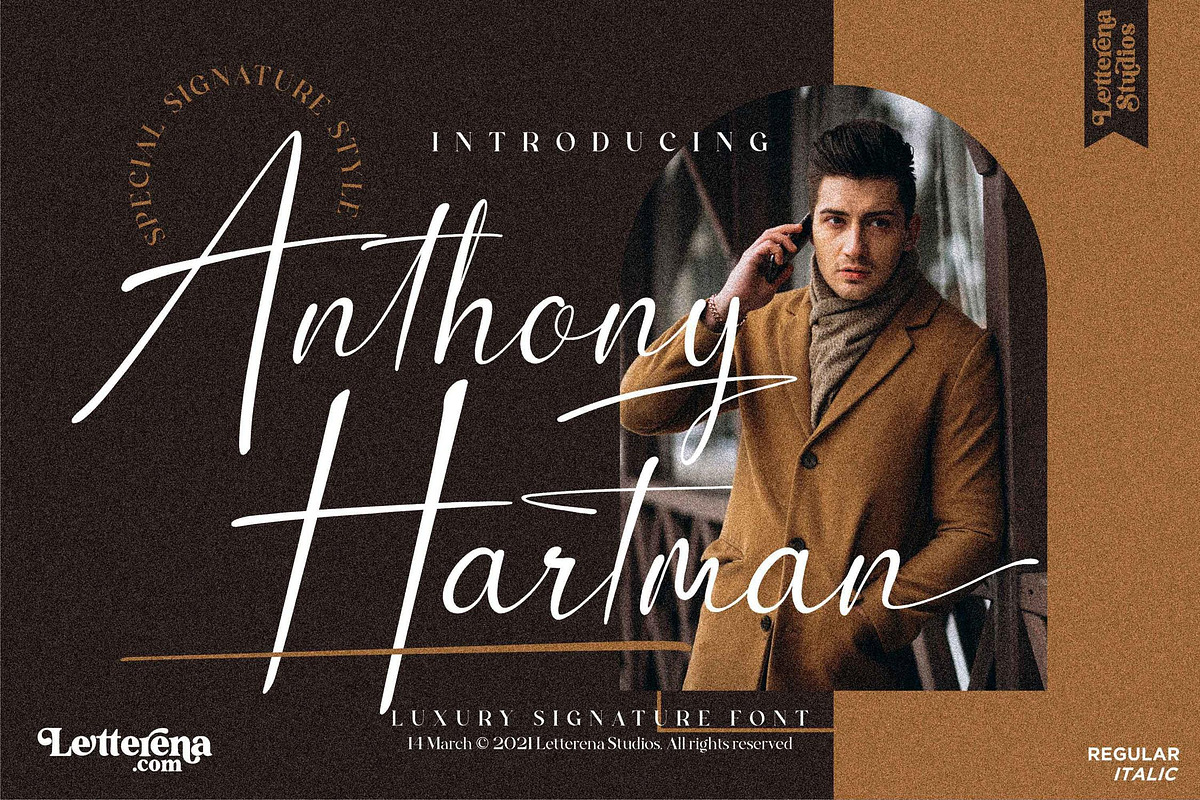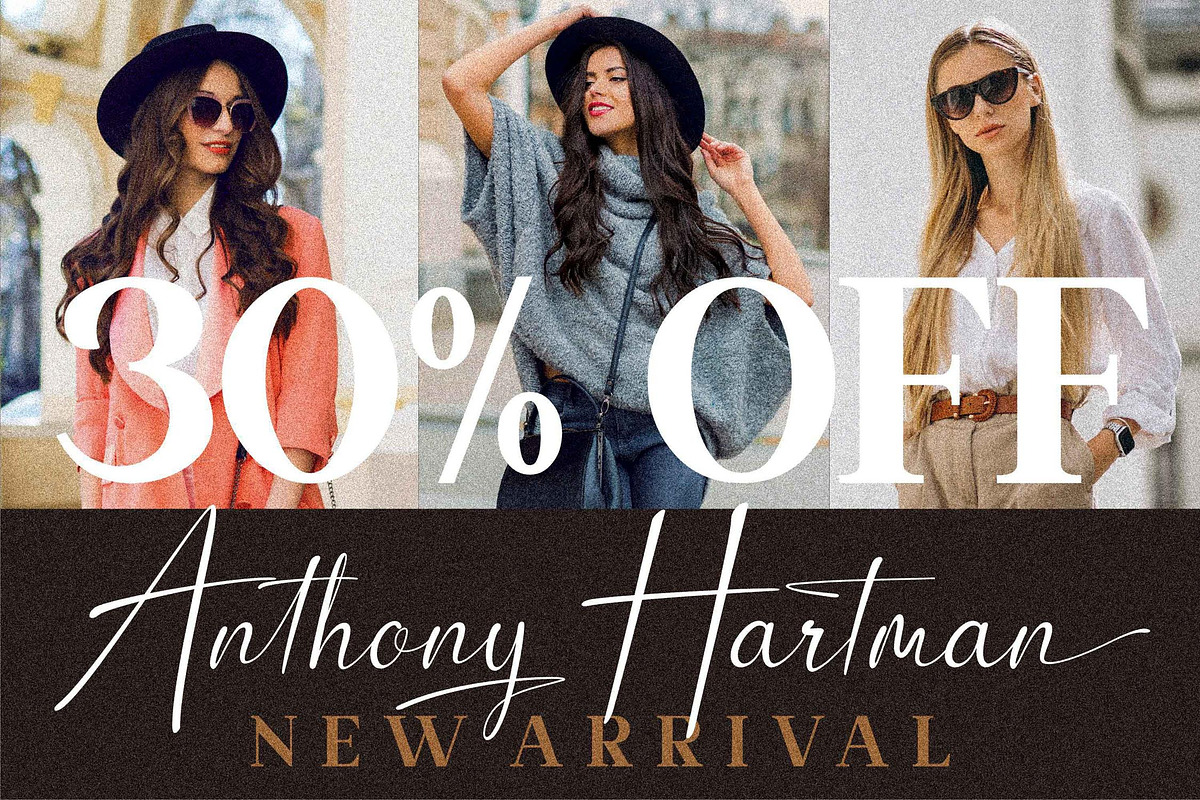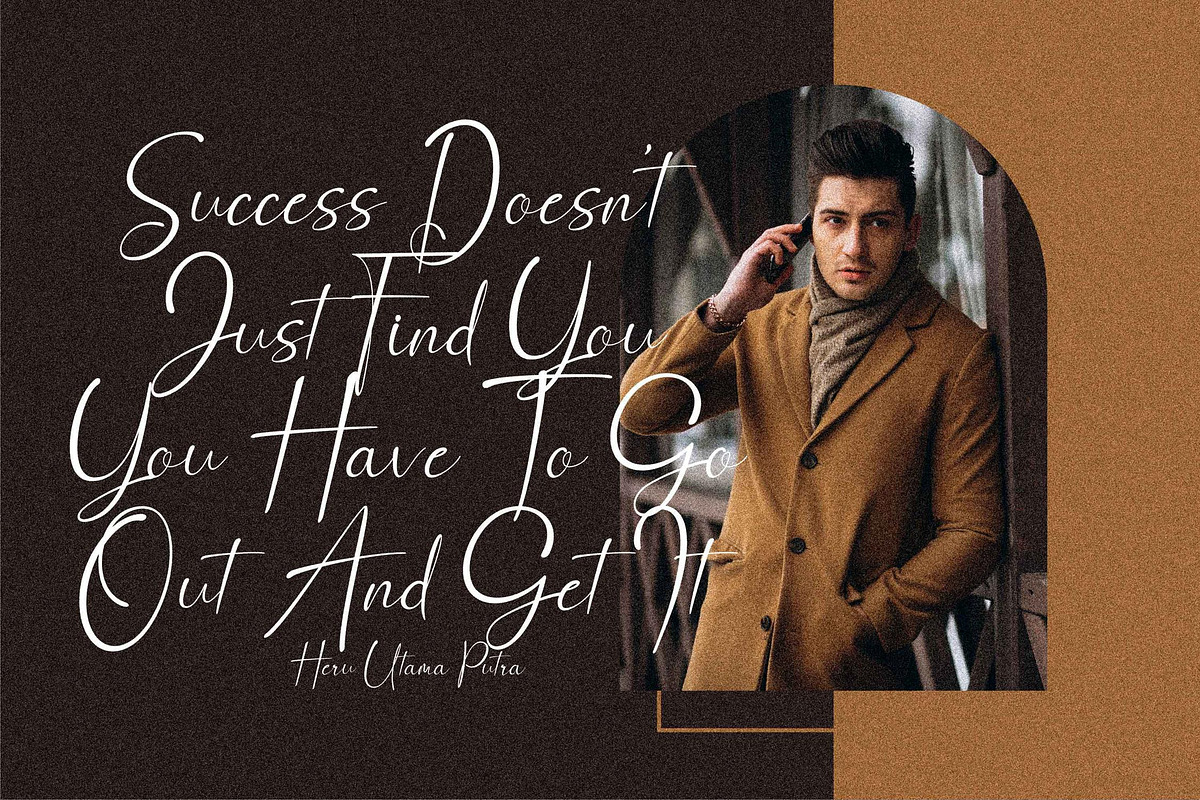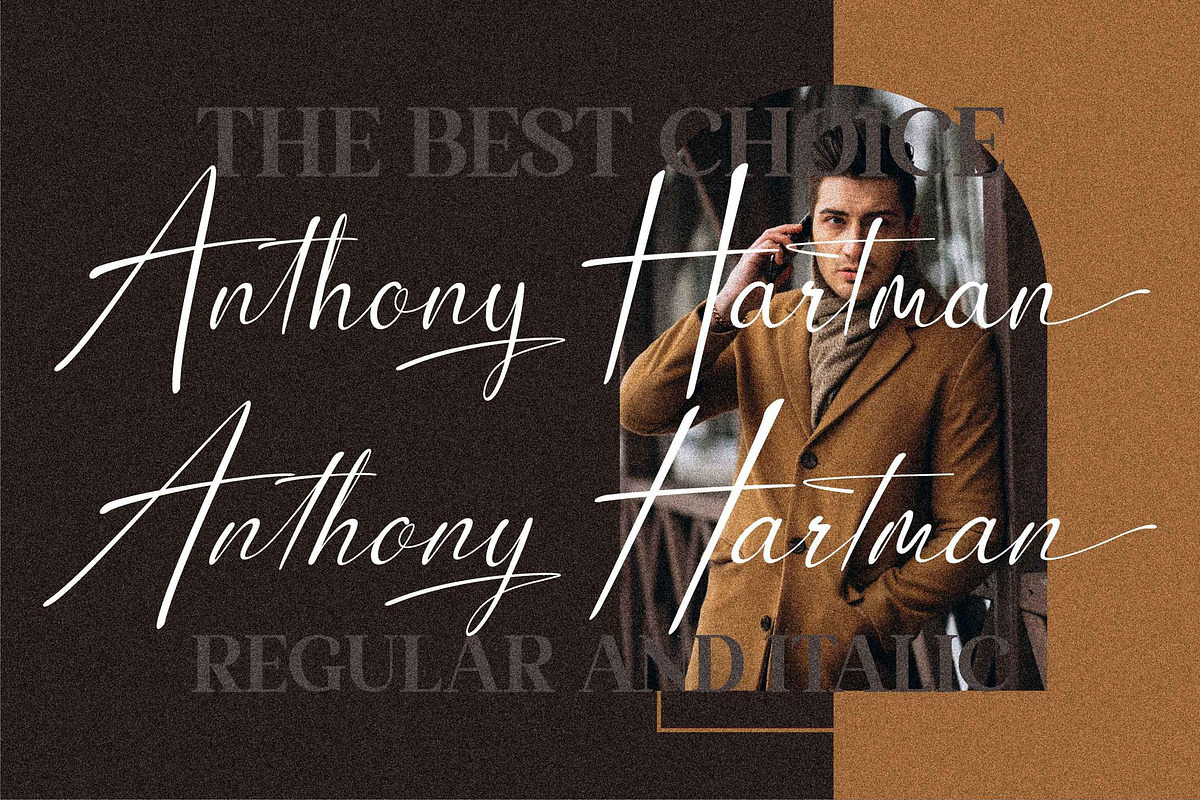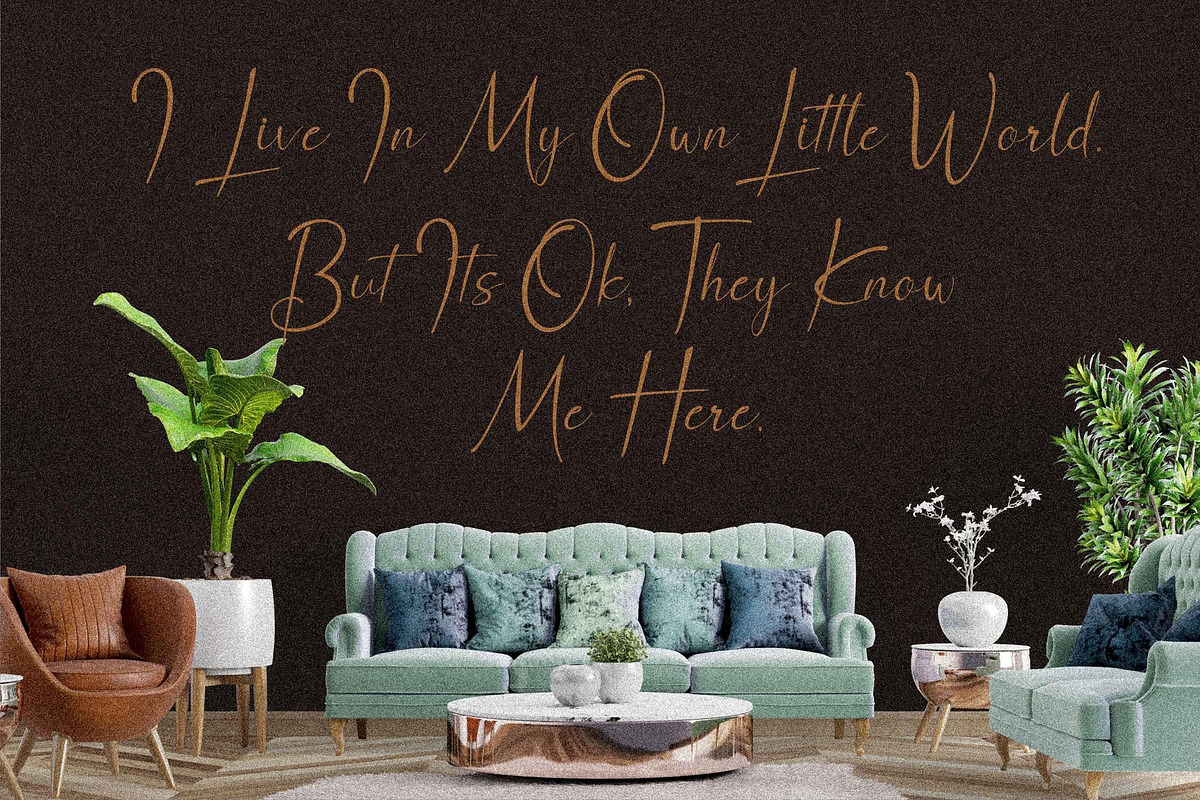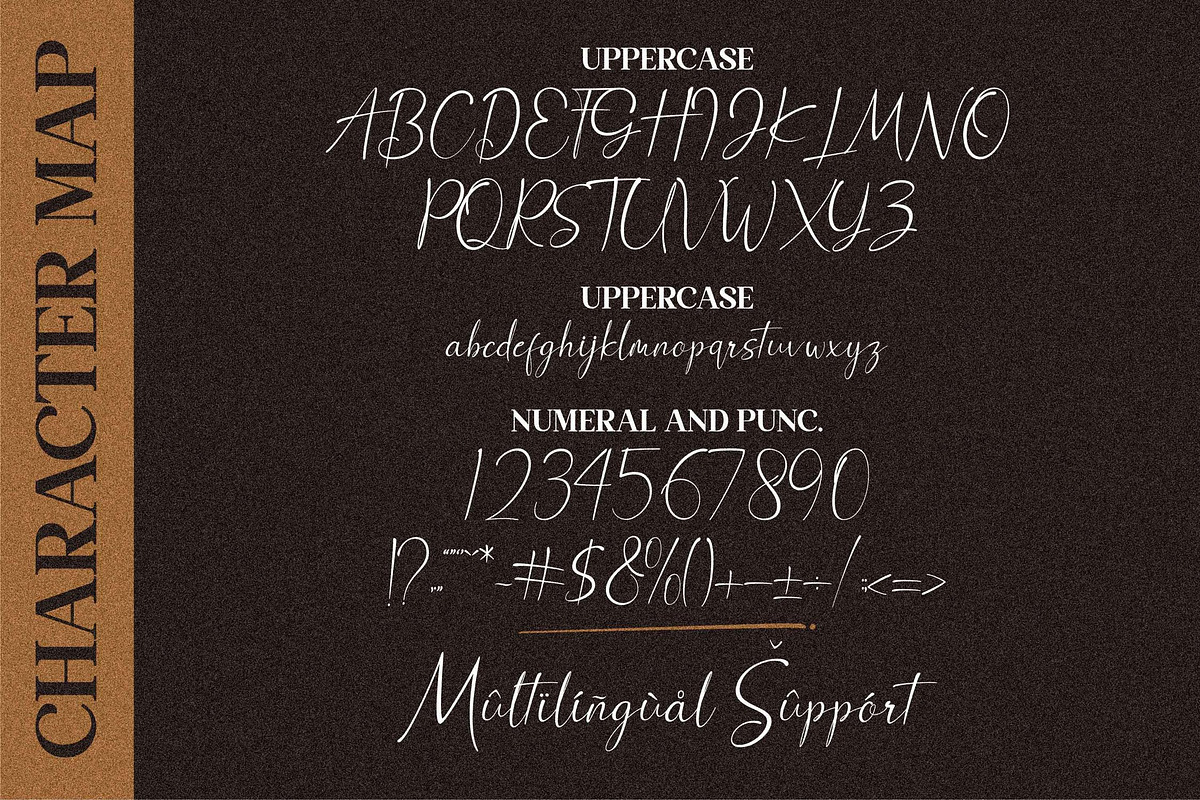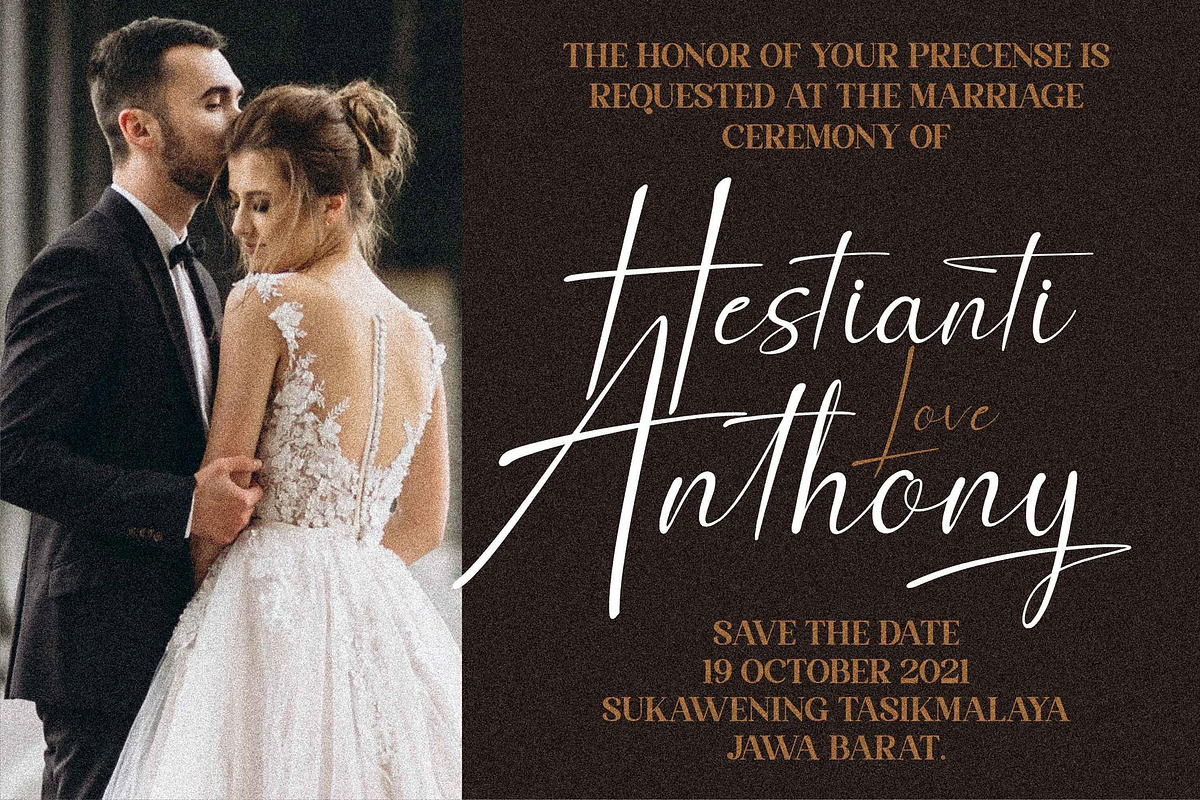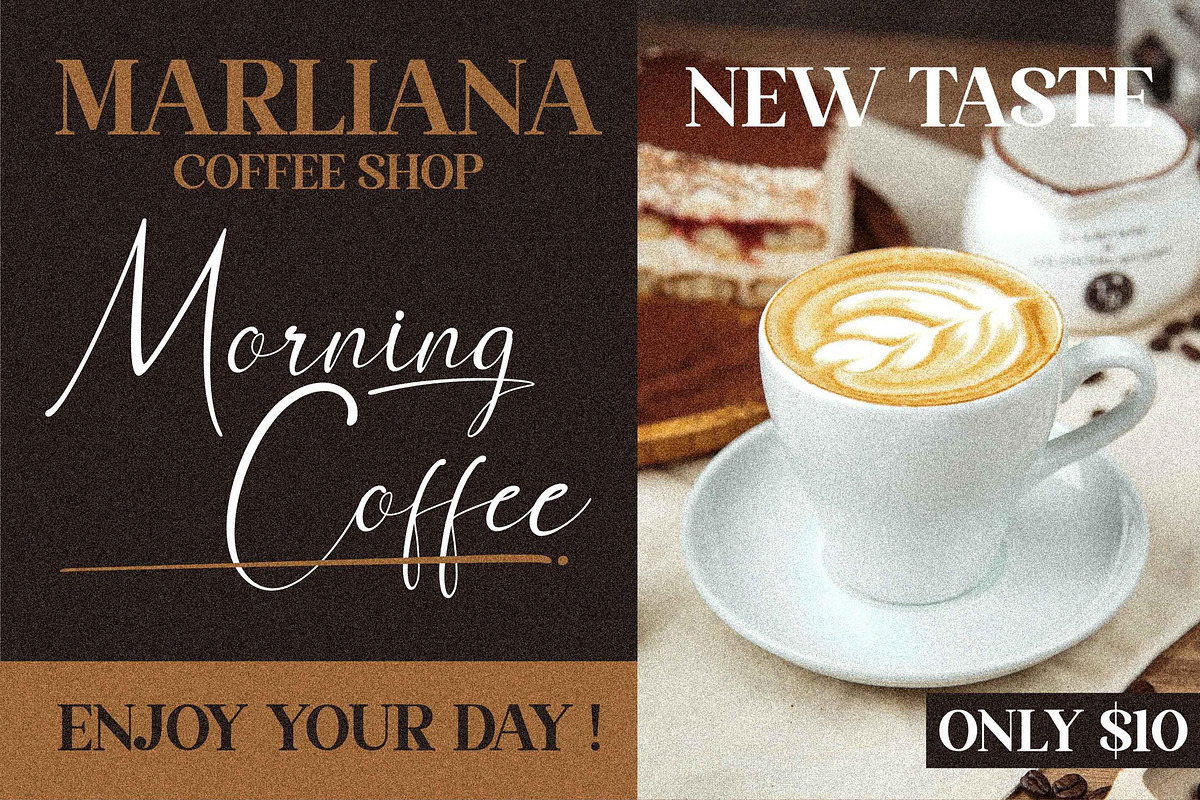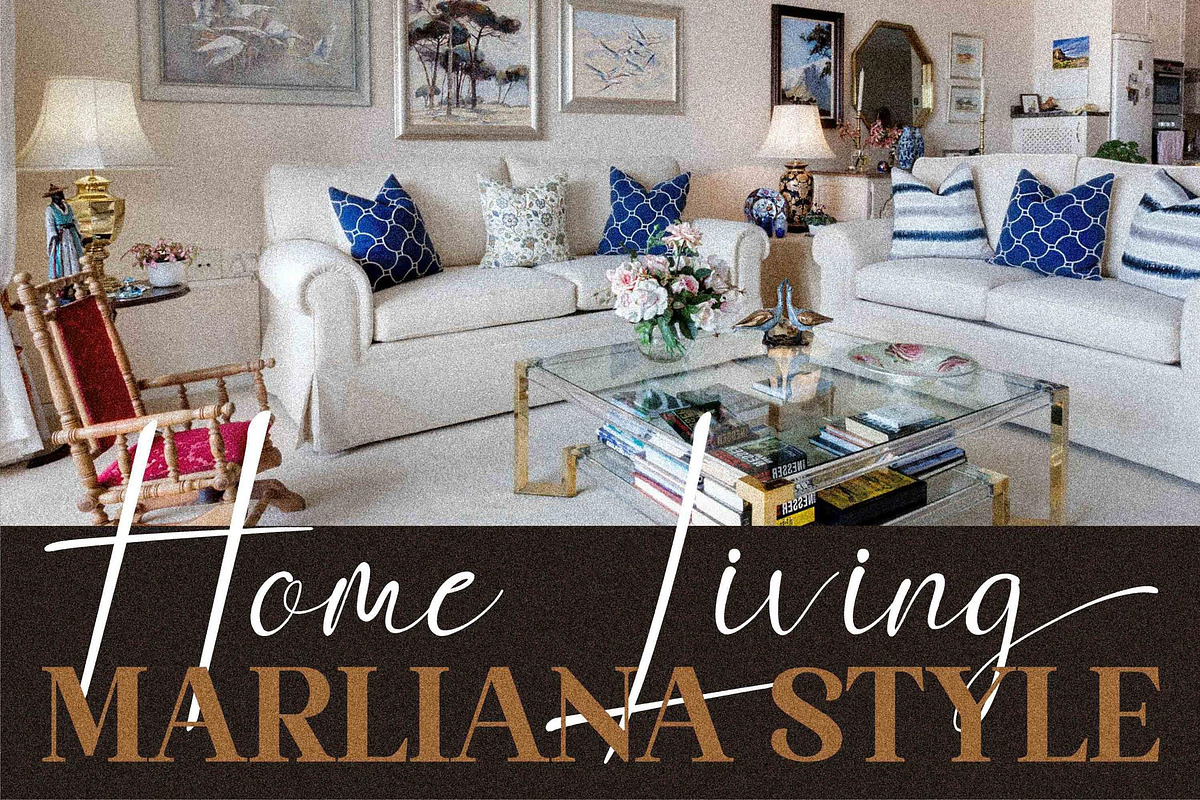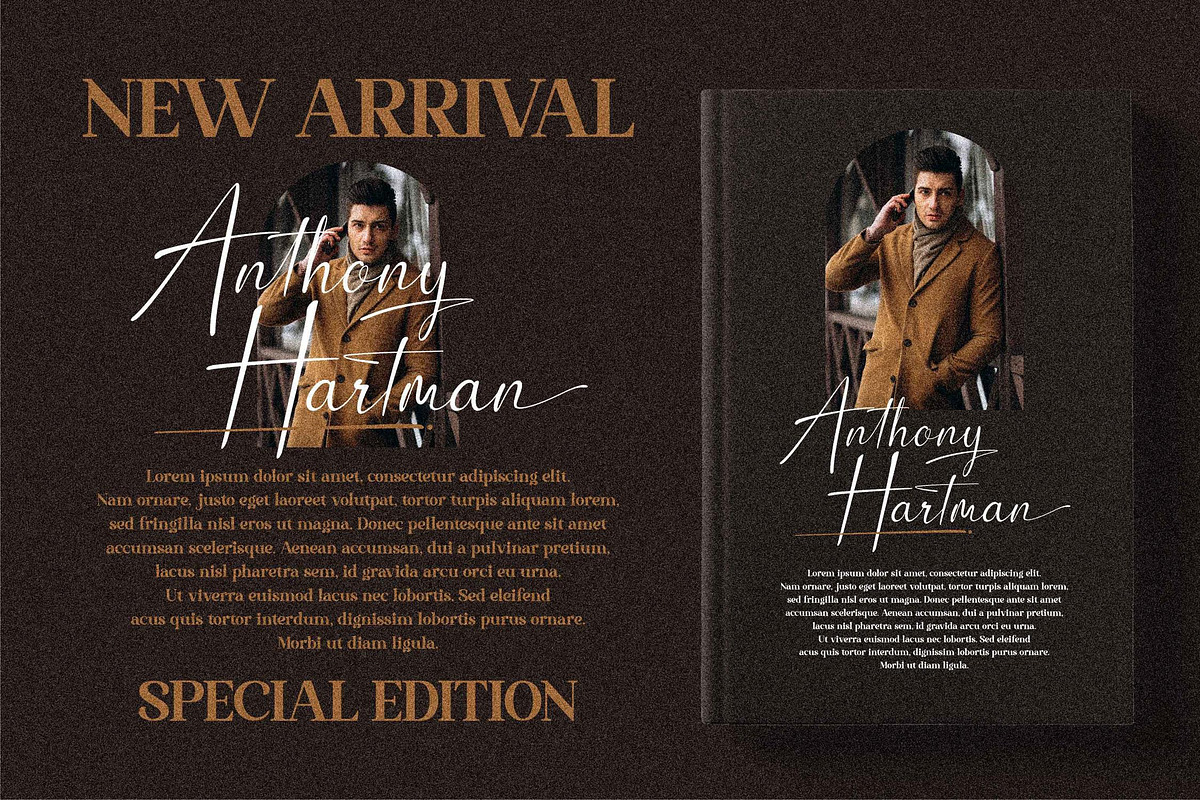
Anthony Hartman Signature LS
Hi ladies & gentlemen, this is one of our fonts suitable to complement your digital and printed creative products. This font is perfect for posters, social media posts, branding, personal projects, etc.